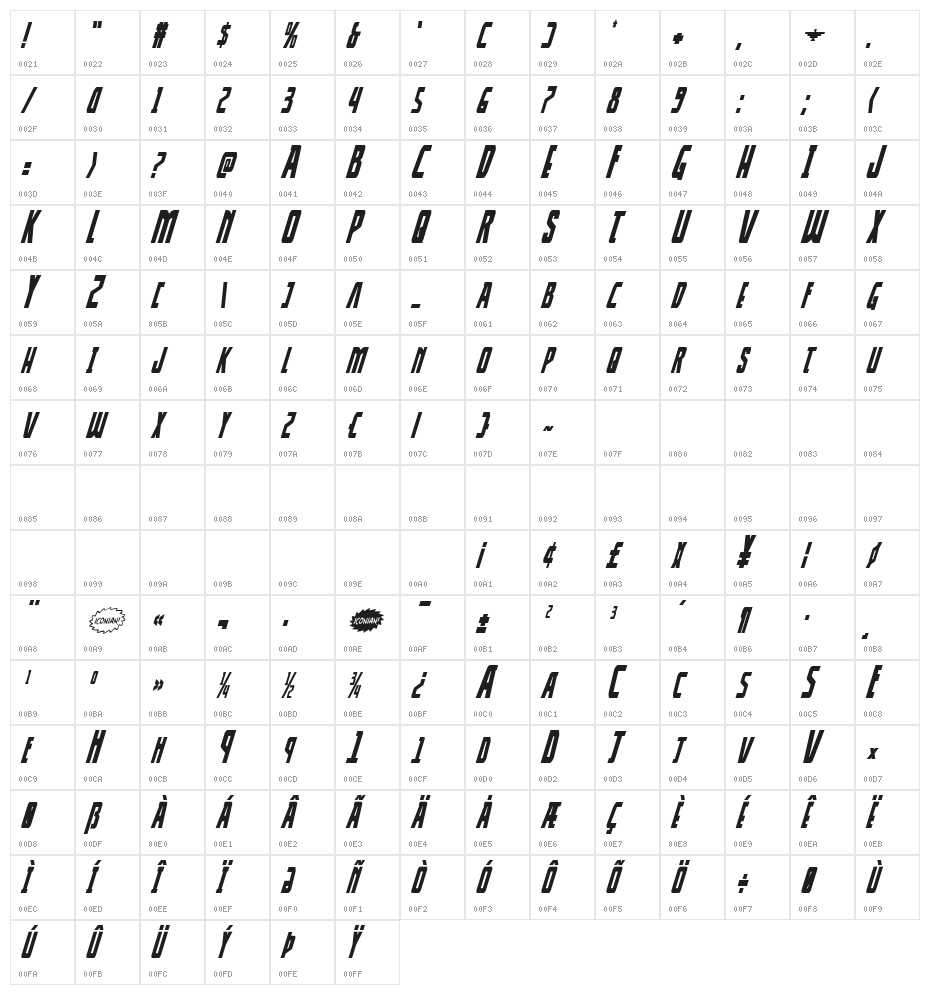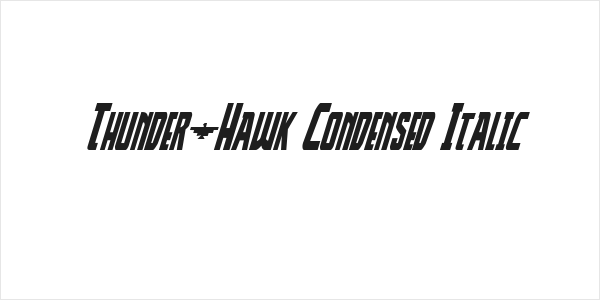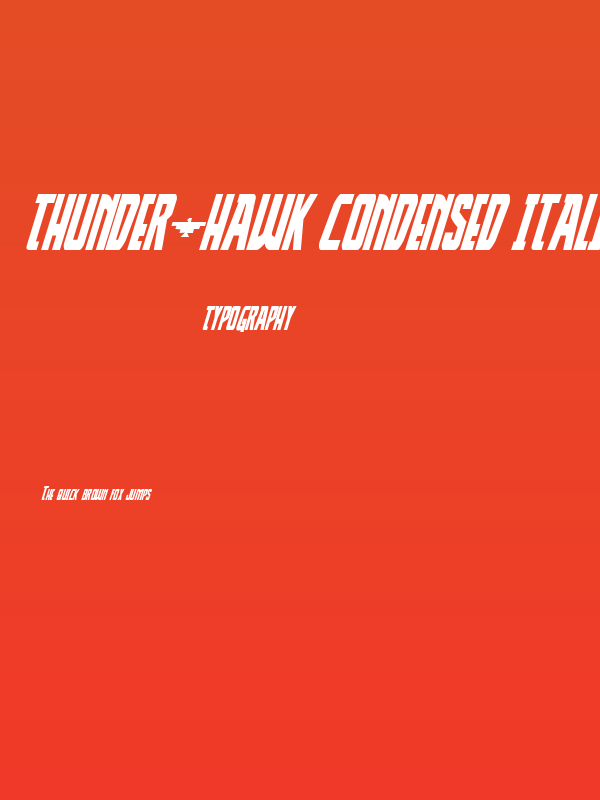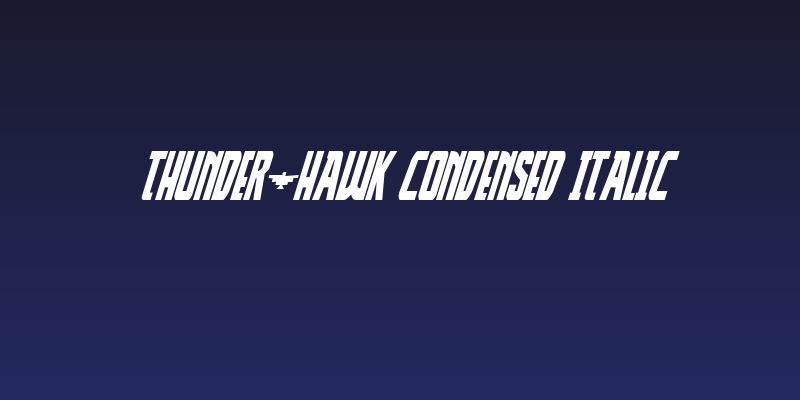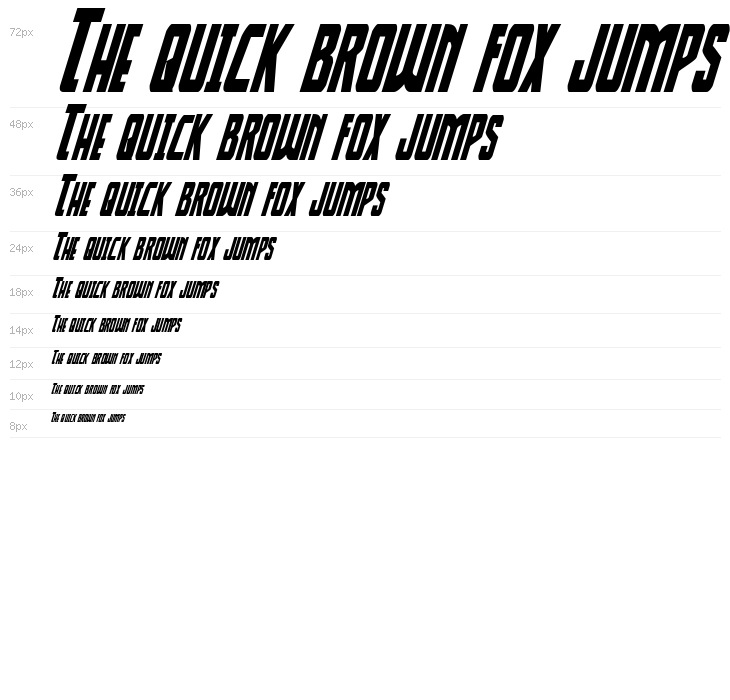
Thunder-Hawk Condensed Italic Font
Thunder-Hawk Condensed Italic Description
This font features a bold and dynamic design with a strong italic slant, giving it a sense of motion and energy. The condensed letterforms are tightly spaced, enhancing its compact appearance. The characters are angular and geometric, with sharp edges and a futuristic style. The uppercase and lowercase letters maintain a consistent height, contributing to a uniform look. The numerals and special characters are designed to match the overall aesthetic, making it suitable for impactful and attention-grabbing designs.
Overall StyleFuturistic
Proposed ProjectsIdeal for sports branding, action movie posters, video game titles, and dynamic advertising campaigns.